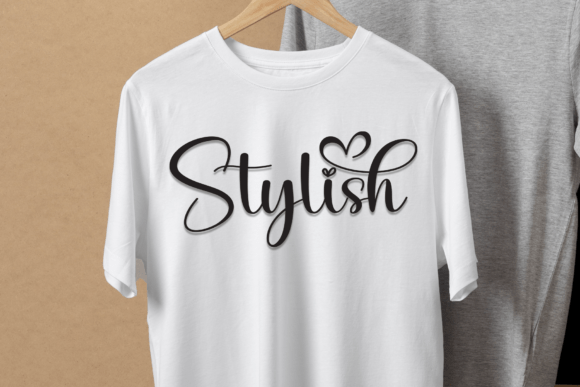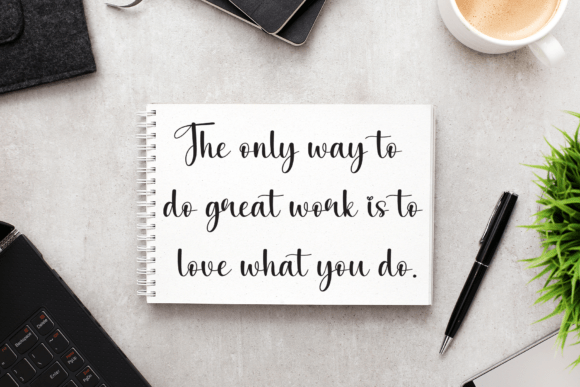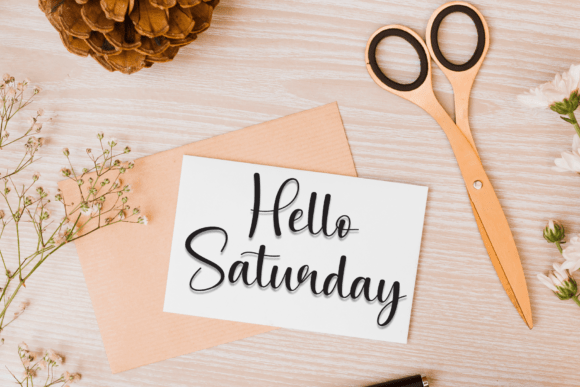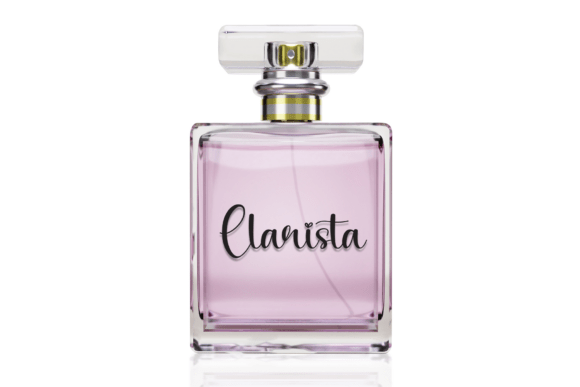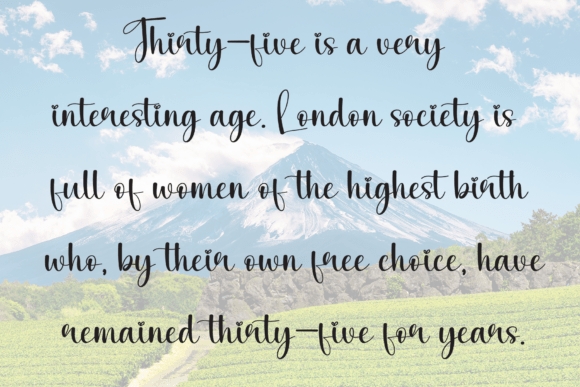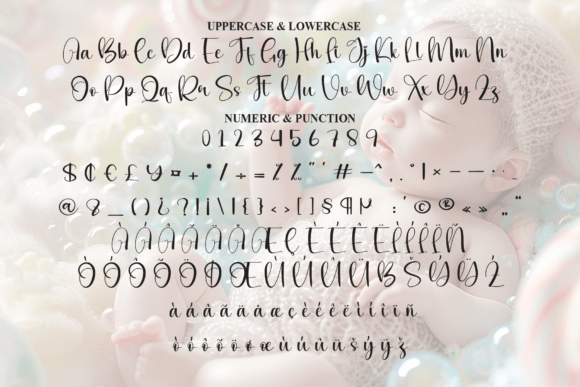
Unleashing Whimsy with the Baby Disney Font
Remember that moment when you stumbled upon the perfect font, and suddenly your design vision came to life? It’s a feeling of pure joy, isn’t it? For designers, finding the right font can be a game-changer. And if you’re looking for a charming script handwritten font that brings a personal, elegant touch to your designs, look no further than the Baby Disney Font.
This lovely font is perfect for adding a touch of whimsy to your projects, from wedding invitations to lifestyle blog graphics. Its smooth curves and natural flow make it feel like it was written with care, giving your designs a romantic and sophisticated feel. Whether you’re going for a classic or modern look, the Baby Disney Font is a versatile choice that’s sure to impress.
Baby Disney Font Key Features
- Font Style: The Baby Disney Font is a custom, handwritten font designed to resemble the classic Disney aesthetic.
- Unique Characteristics: The font features a playful, whimsical design with intricate details and flourishes, perfect for adding a touch of magic to your designs.
Baby Disney Font Review
Overall, I found the Baby Disney Font to be a charming and playful option for designers looking to add a touch of whimsy to their projects. ✨ Here are some of the things that work well:
- Cute and stylized characters
- Perfect for children’s products or family-friendly brands
- Works well in digital and print applications
- ⚠️ Limited character set, which may not be ideal for long texts
- Not suitable for professional or formal branding
- Some letters may not be legible at smaller font sizes
Despite these limitations, I think the Baby Disney Font is a great option for designers who want to add a playful touch to their work. It’s perfect for projects like children’s books, nursery decor, or family-friendly websites. Just be sure to use it judiciously and pair it with other fonts to avoid overwhelming the design.
Getting the Most Out of Baby Disney Font
For the best results, use Baby Disney Font for titles, headings, and other prominent text elements. Experiment with different font sizes and colors to create a visually appealing design. You can also pair Baby Disney Font with other fonts to create a unique and playful look.
Baby Disney Font is perfect for creating whimsical and playful designs, such as:
– Children’s birthday invitations
– Baby shower invitations
– Kids’ party decorations
– Family photo albums and scrapbooks
Alternatives to Baby Disney Font
Comic Sans
Comic Sans is a playful, informal font that can be used for casual designs such as children’s books, magazines, and websites. It is similar to Baby Disney Font in its rounded edges and friendly feel, but it lacks the Disney-inspired charm. Use Comic Sans when you need a fun, approachable font without the Disney tie-in.
Great Vibes is a modern, cursive font that can be used for designs that need a touch of elegance and sophistication. It is more refined than Baby Disney Font and has a more mature feel. Use Great Vibes when you need a font that conveys a sense of whimsy without being too childish.
Pacifico is a beautiful, handwritten font that can be used for designs that need a touch of warmth and personality. It is more elegant than Baby Disney Font and has a more relaxed feel. Use Pacifico when you need a font that conveys a sense of calm and serenity.
Lobster is a fun, cursive font that can be used for designs that need a touch of playfulness and humor. It is similar to Baby Disney Font in its fun, casual feel, but it has a more rugged, edgy quality. Use Lobster when you need a font that adds a bit of whimsy and personality to your design.
Creative Project Ideas Using Baby Disney Font
Project 1: Whimsical Nursery Wall Art